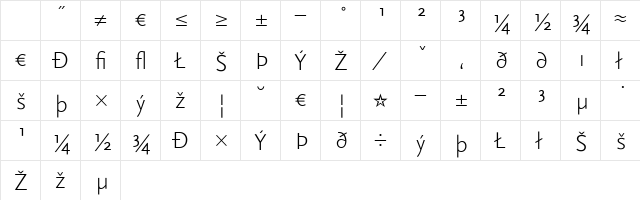
Complete Scala Sans Light glyph index. Displaying only characters natively supported by Scala Sans Light font.
Scala Sans is a composed and adaptable typeface that performs quietly and consistently across a wide range of design contexts. Its slender proportions lend an understated elegance to any composition.
Who designed the Scala Sans Light font?
This font was published by Martin Majoor, . Published by FontShop International. FontFont Release. Check the technical specs section for copyright and designer details.